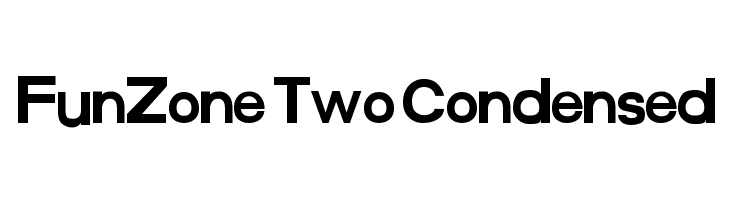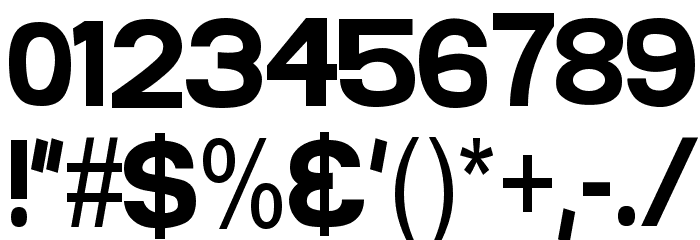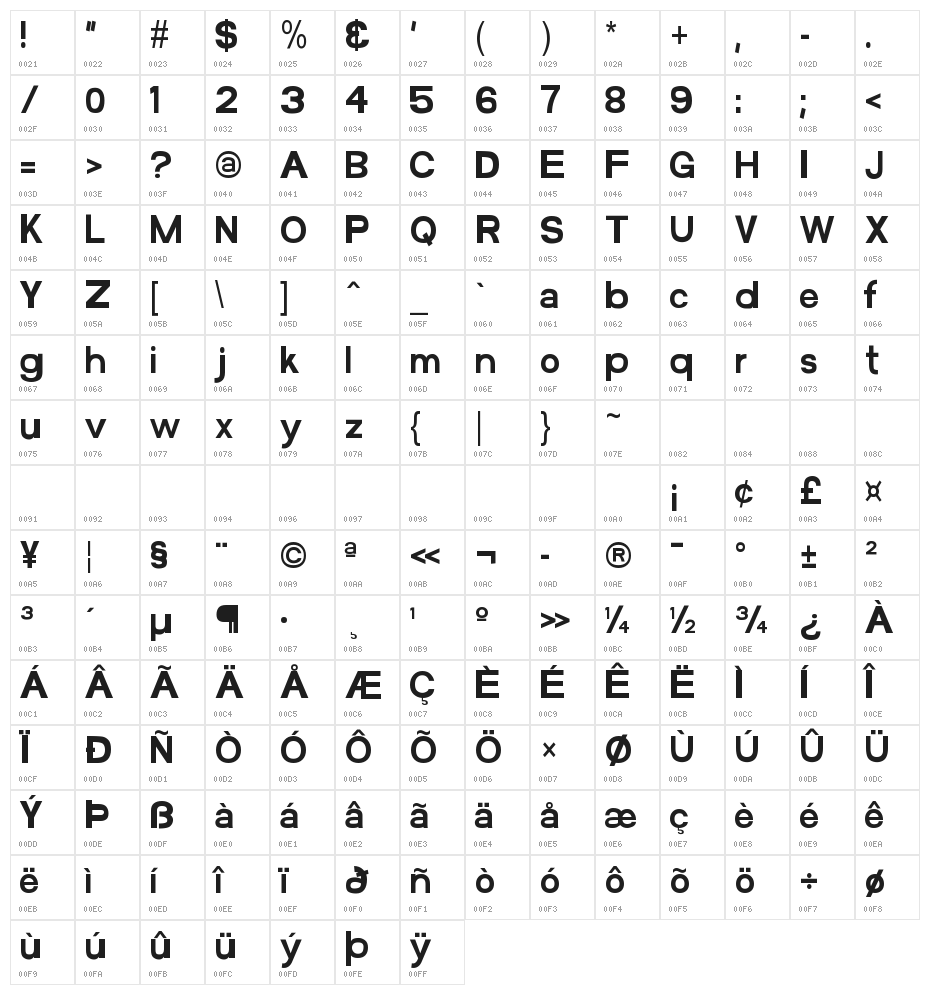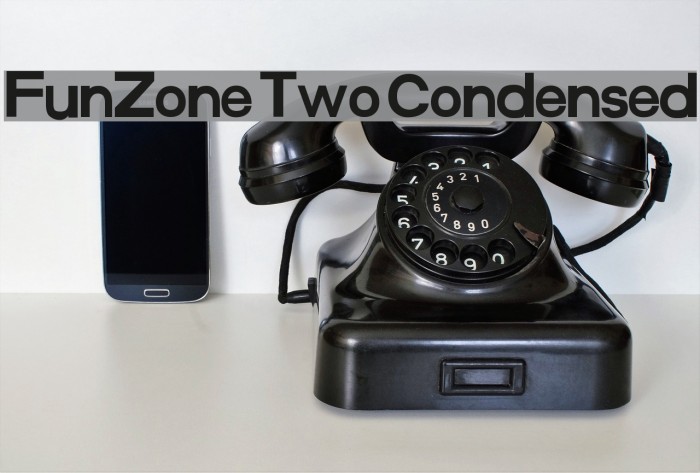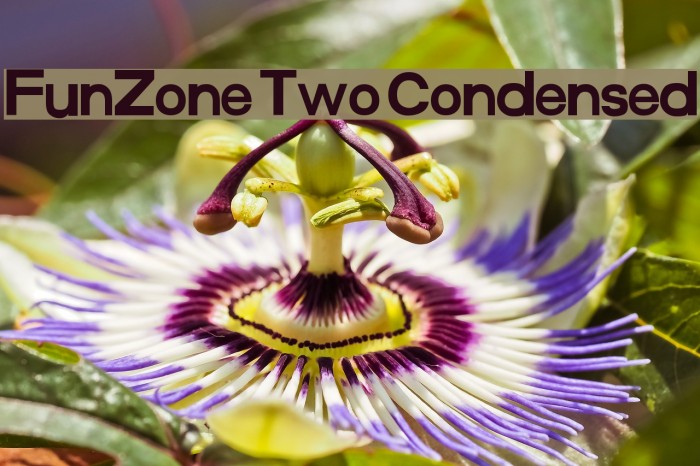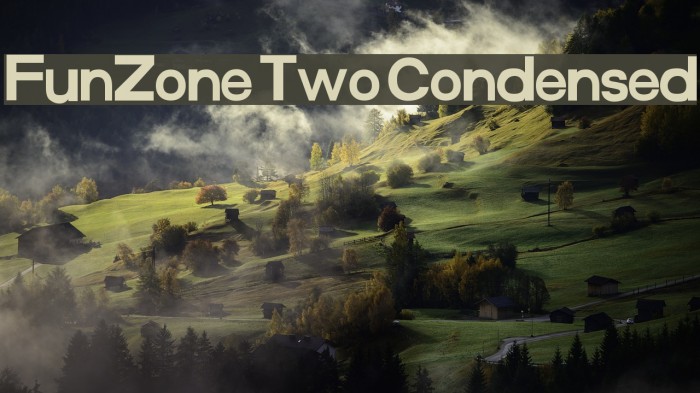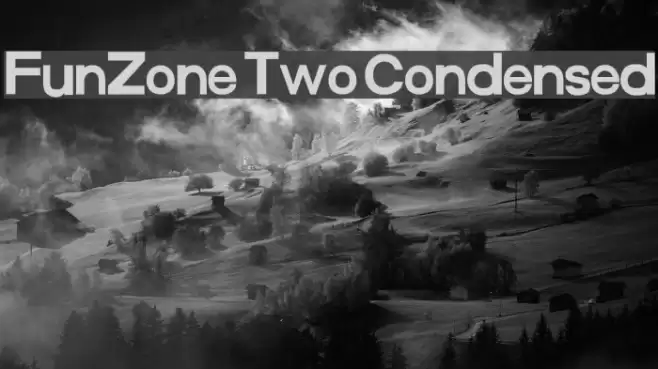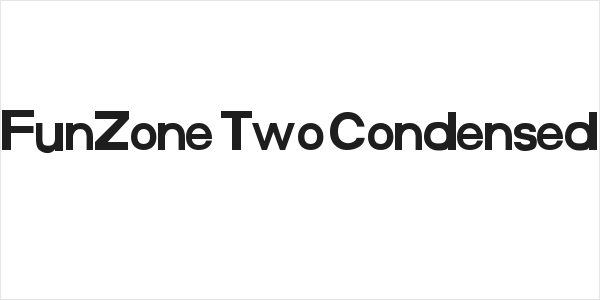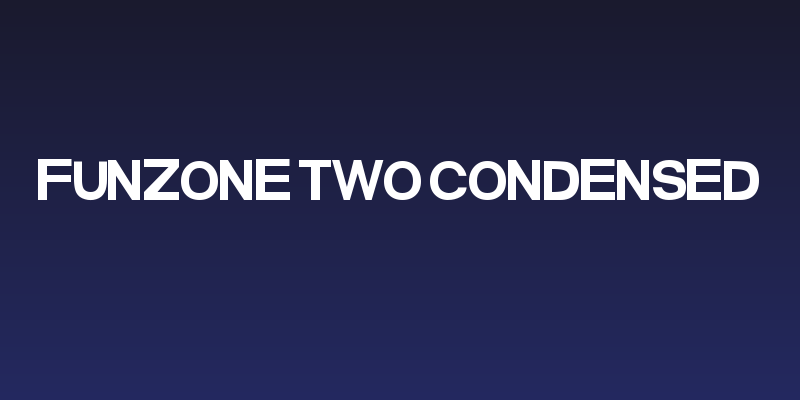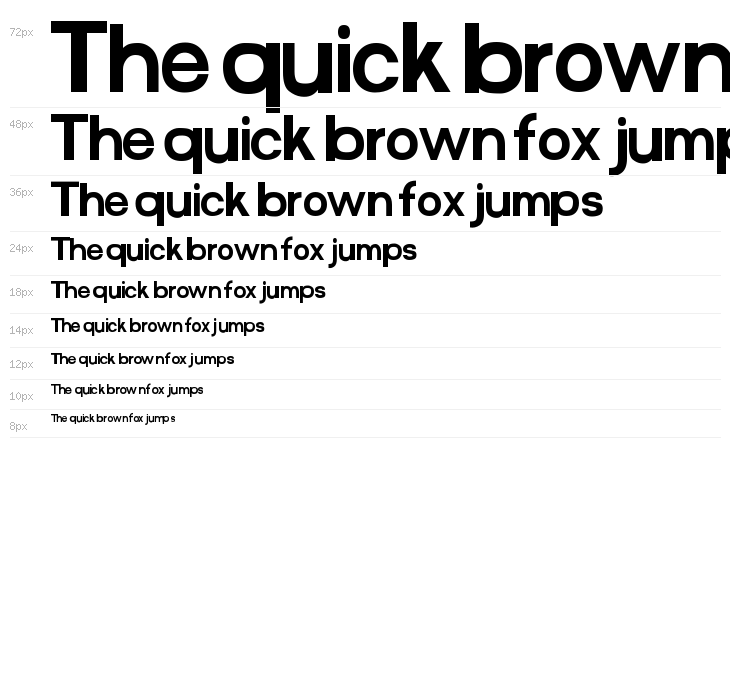
FunZone Two Condensed Font
FunZone Two Condensed Description
This font features a bold and modern sans-serif style with a condensed width, making it ideal for impactful headlines and attention-grabbing text. The characters are uniformly thick, providing a strong visual presence. The uppercase and lowercase letters maintain a consistent height, contributing to a clean and organized appearance. The numerals are clear and easily distinguishable, while the special characters are well-integrated, ensuring versatility in various design contexts.
| Proposed Projects | Ideal for branding, advertising, posters, and digital media where bold and clear text is essential. |